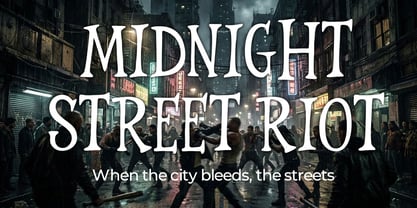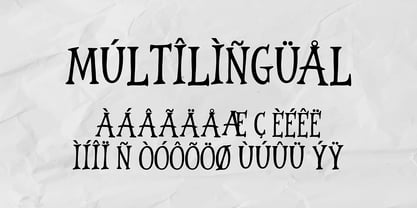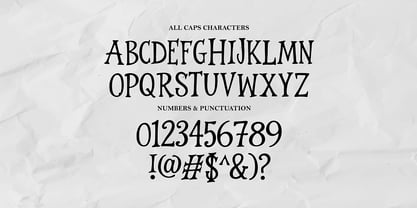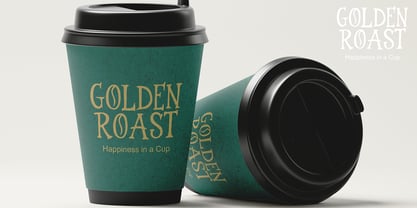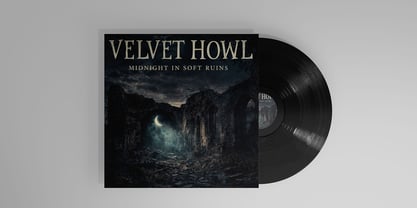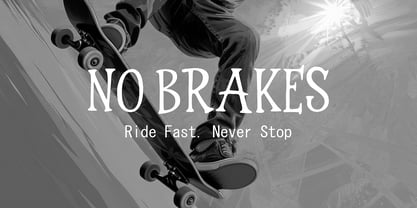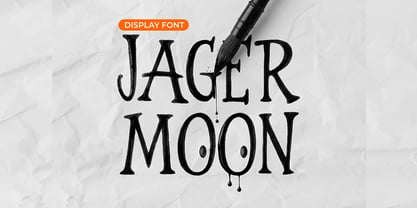
Jager Moon
by Sipanji21
Jager Moon is a classic serif display font that blends vintage elegance with a handcrafted character. Inspired by traditional lettering, old print aesthetics, and timeless typography, this font delivers a strong yet refined presence that works beautifully across editorial and branding designs. The letterforms feature subtle curves, balanced proportions, and distinctive serif details that give Jager Moon a warm and authentic personality. It feels rooted in classic typography while remaining versatile enough for modern design applications. Each character is carefully shaped to maintain readability while still expressing a bold visual identity. Jager Moon comes in one style, making it straightforward and easy to use for designers who prefer clean and consistent typography. The font includes uppercase and lowercase letters, numbers, punctuation, and multilingual support, allowing it to be used in a wide range of international projects without limitation. This typeface is well suited for designs that require a traditional, elegant, or slightly vintage atmosphere. From branding and packaging to editorial layouts and creative headlines, Jager Moon adds character without overpowering the design. Design Character Jager Moon combines classic serif construction with organic details that create a handcrafted feel. The font balances strength and elegance, making it ideal for both bold headlines and refined typographic compositions. Its timeless appearance ensures long-term usability across various creative trends. Perfect For • Vintage and classic branding • Editorial design and magazine layouts • Logo and identity design • Packaging and label design • Book covers and posters • Traditional, rustic, or heritage-style projects • Elegant headlines and display typography Why Choose Jager Moon offers simplicity, clarity, and timeless appeal in a single-style serif font. Without stylistic alternates or decorative distractions, it provides a clean and focused typographic solution for designers who value classic aesthetics and functional versatility. Its multilingual support further expands its usability for global projects. Jager Moon is a dependable display serif font that brings elegance, tradition, and character into every design.